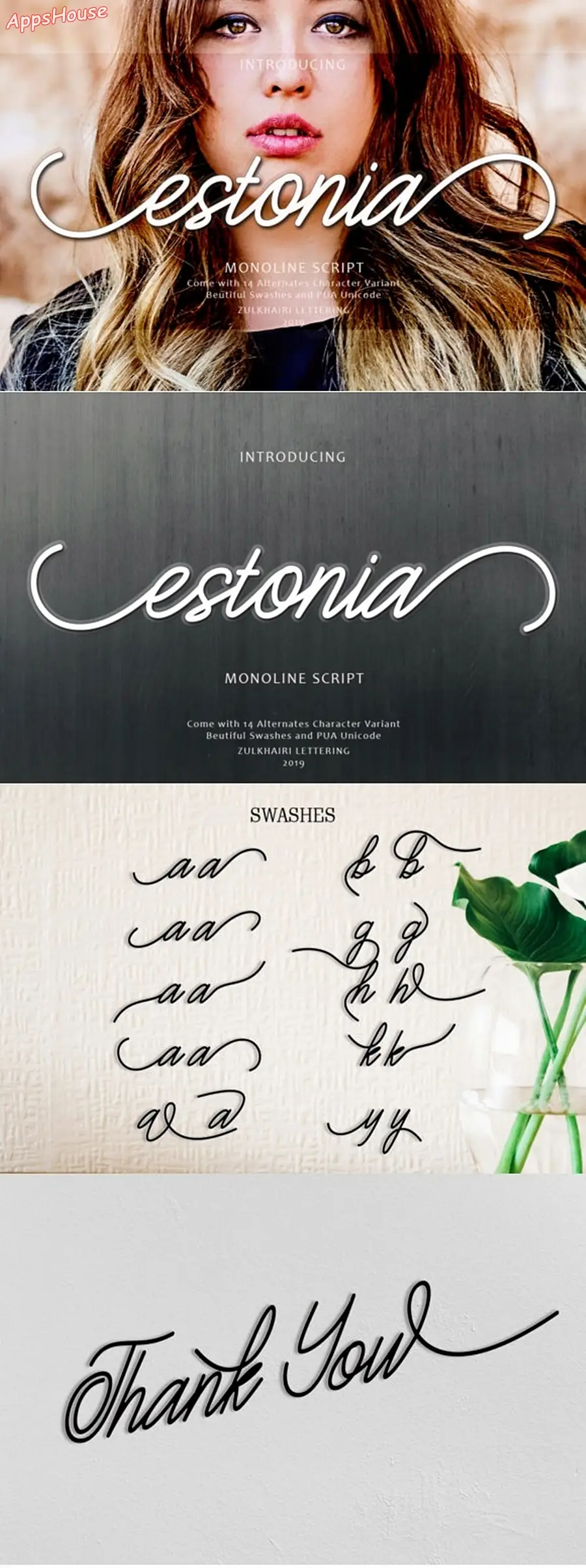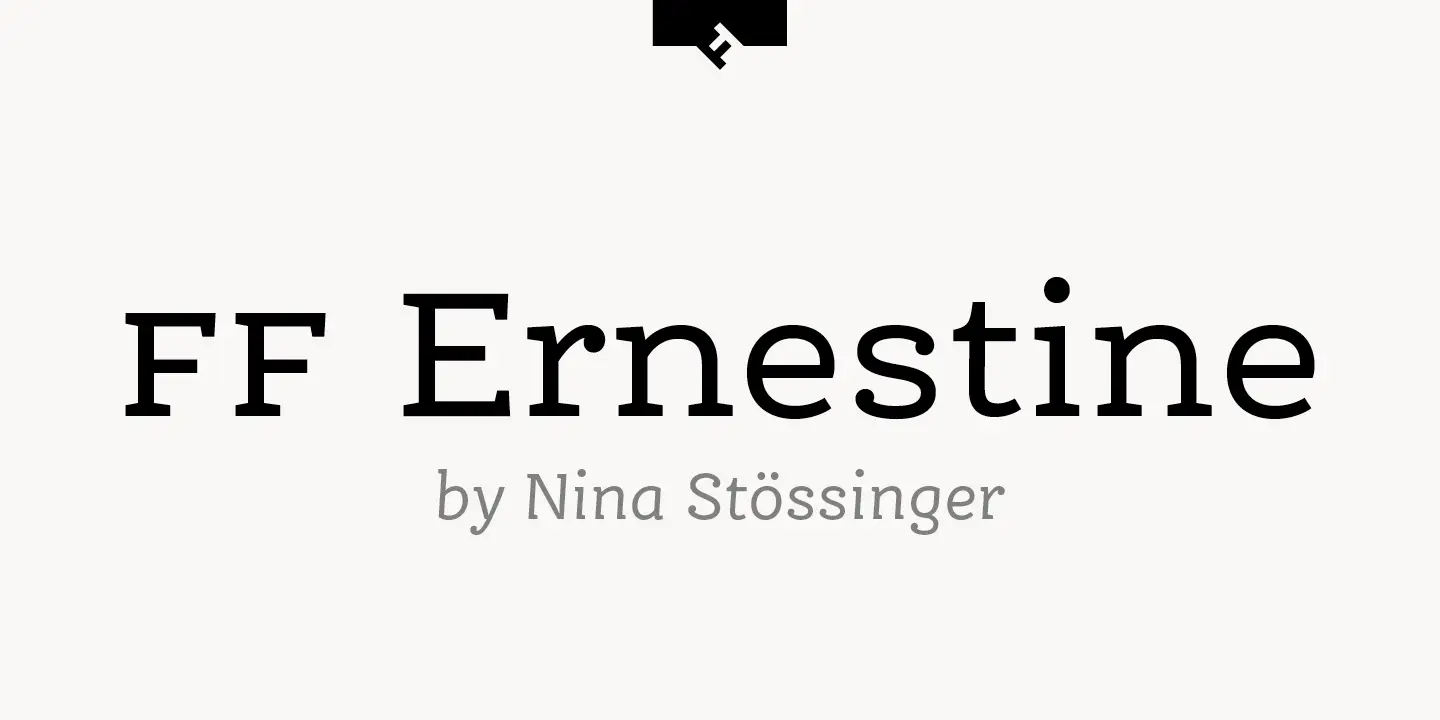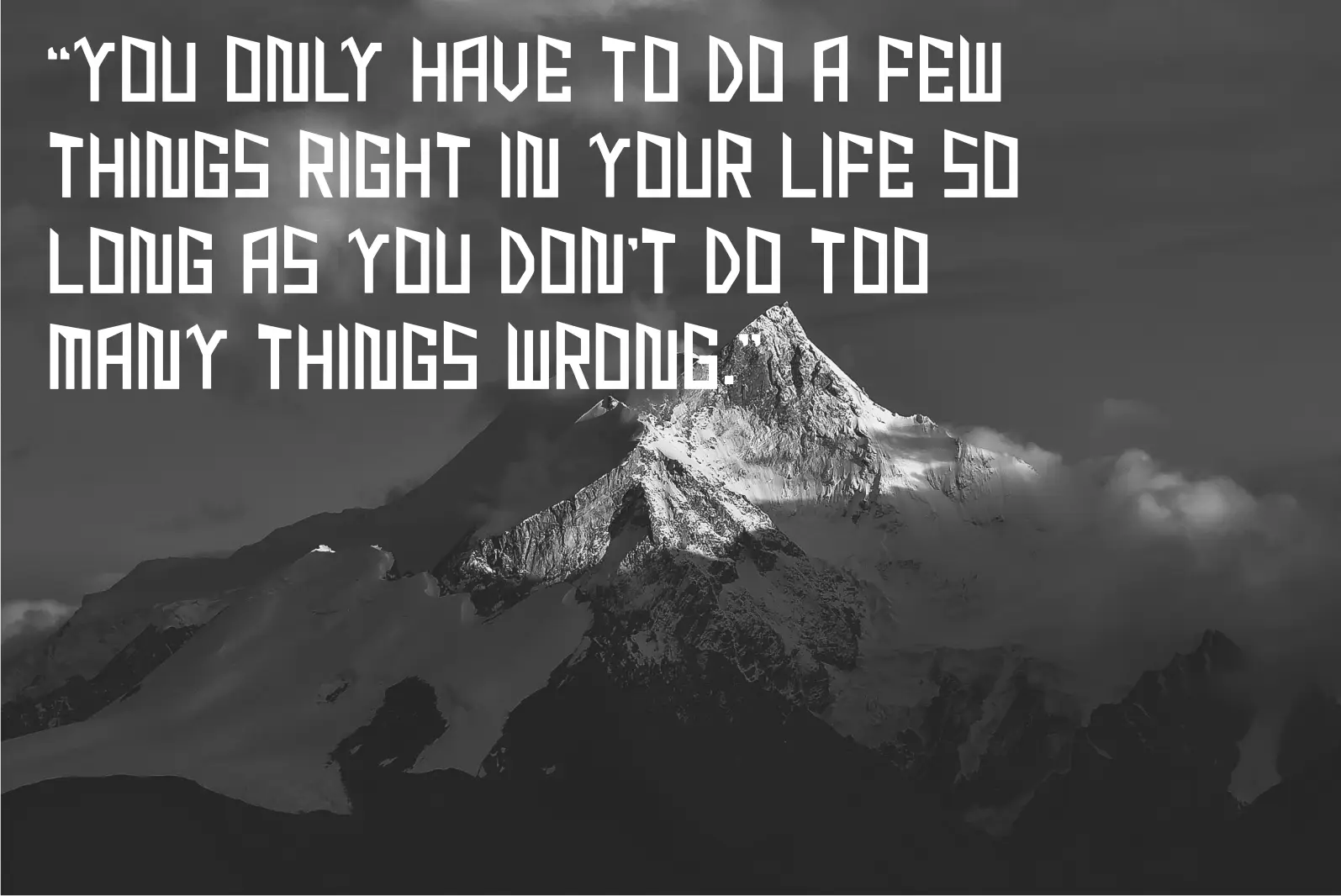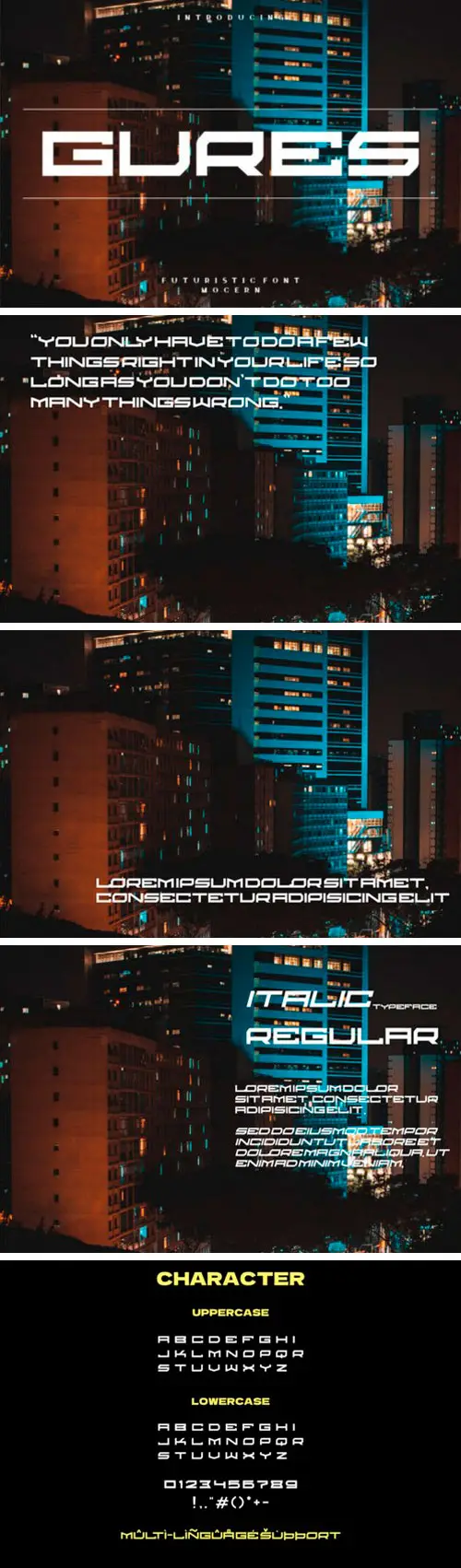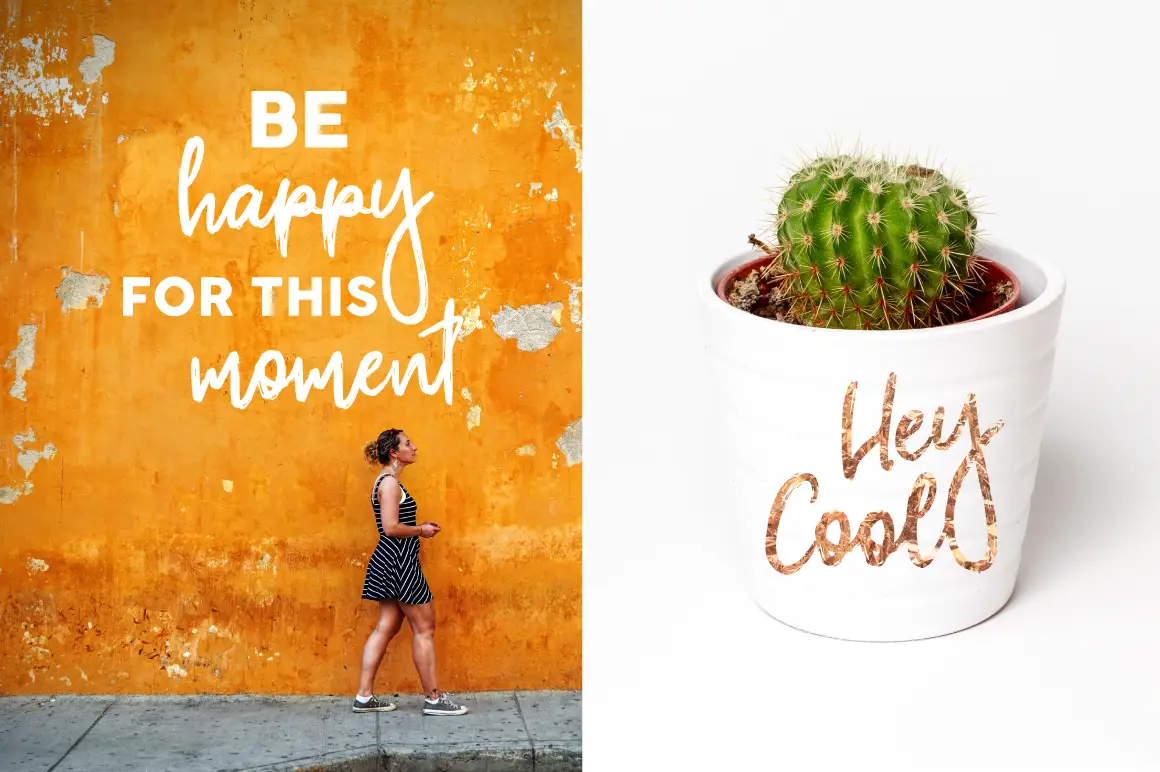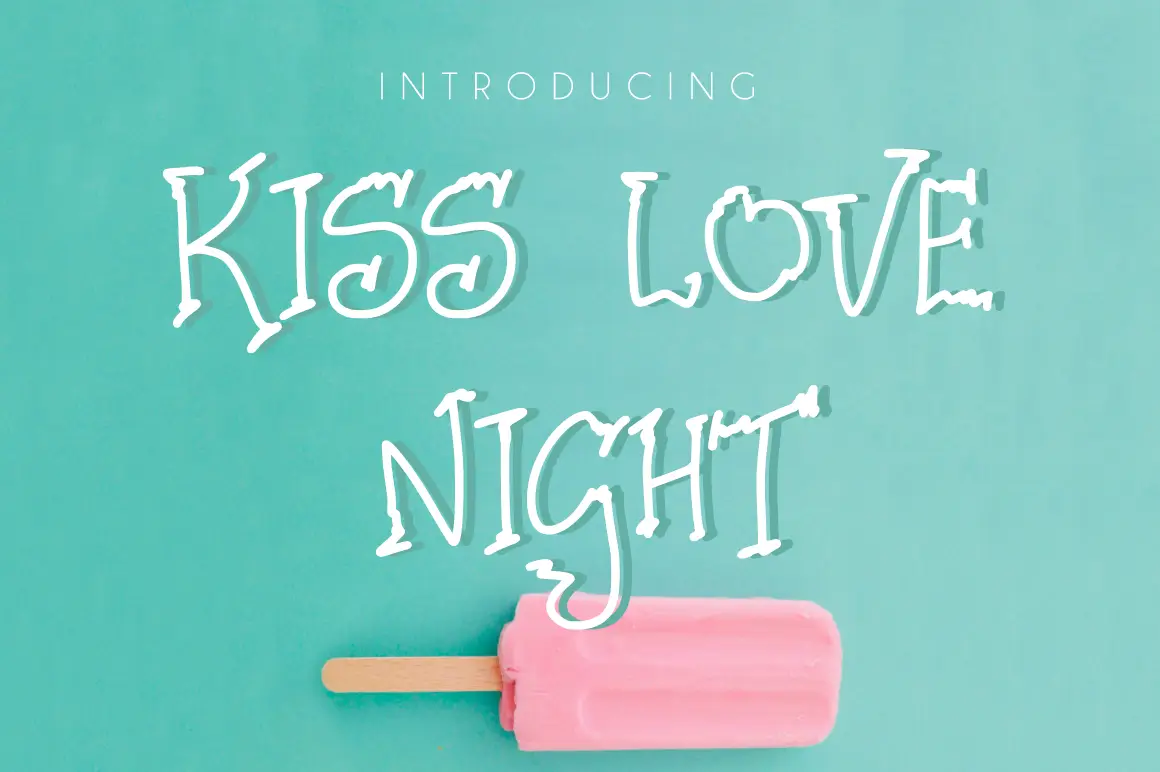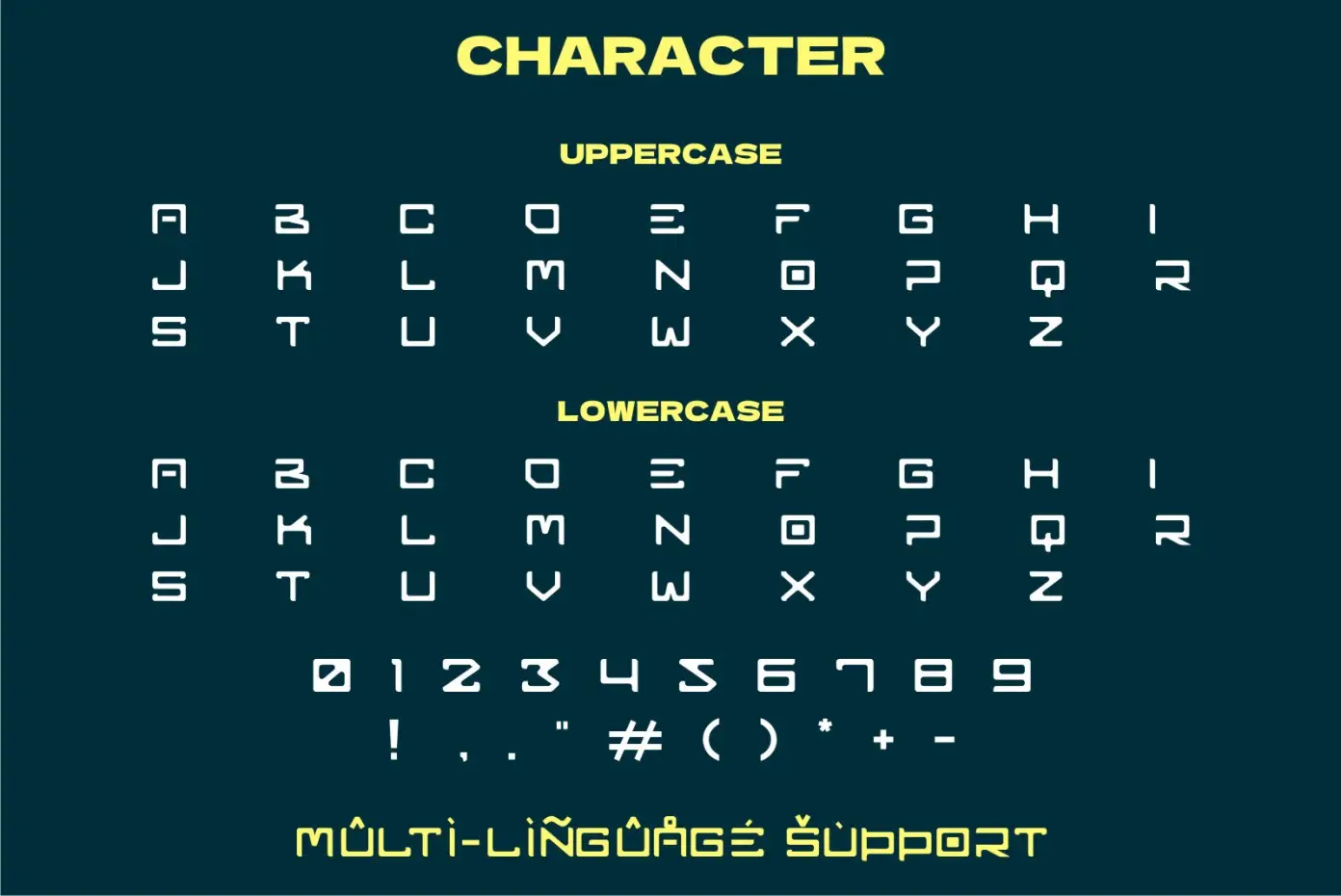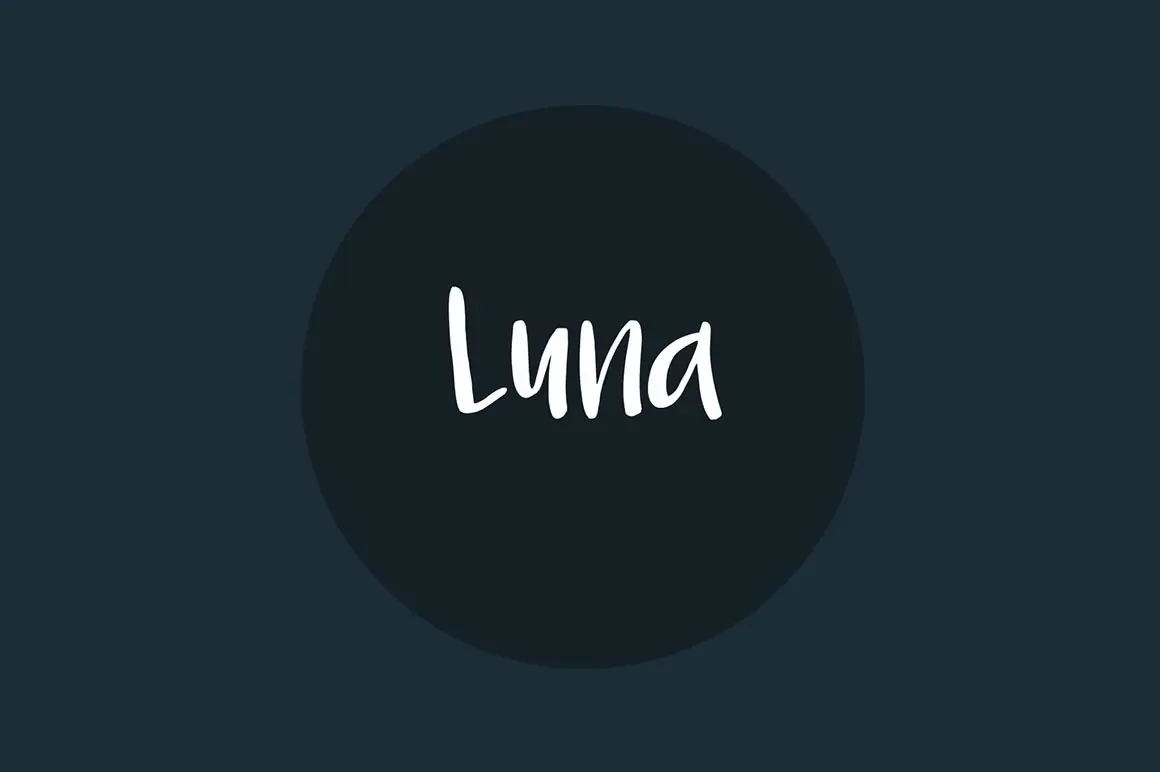
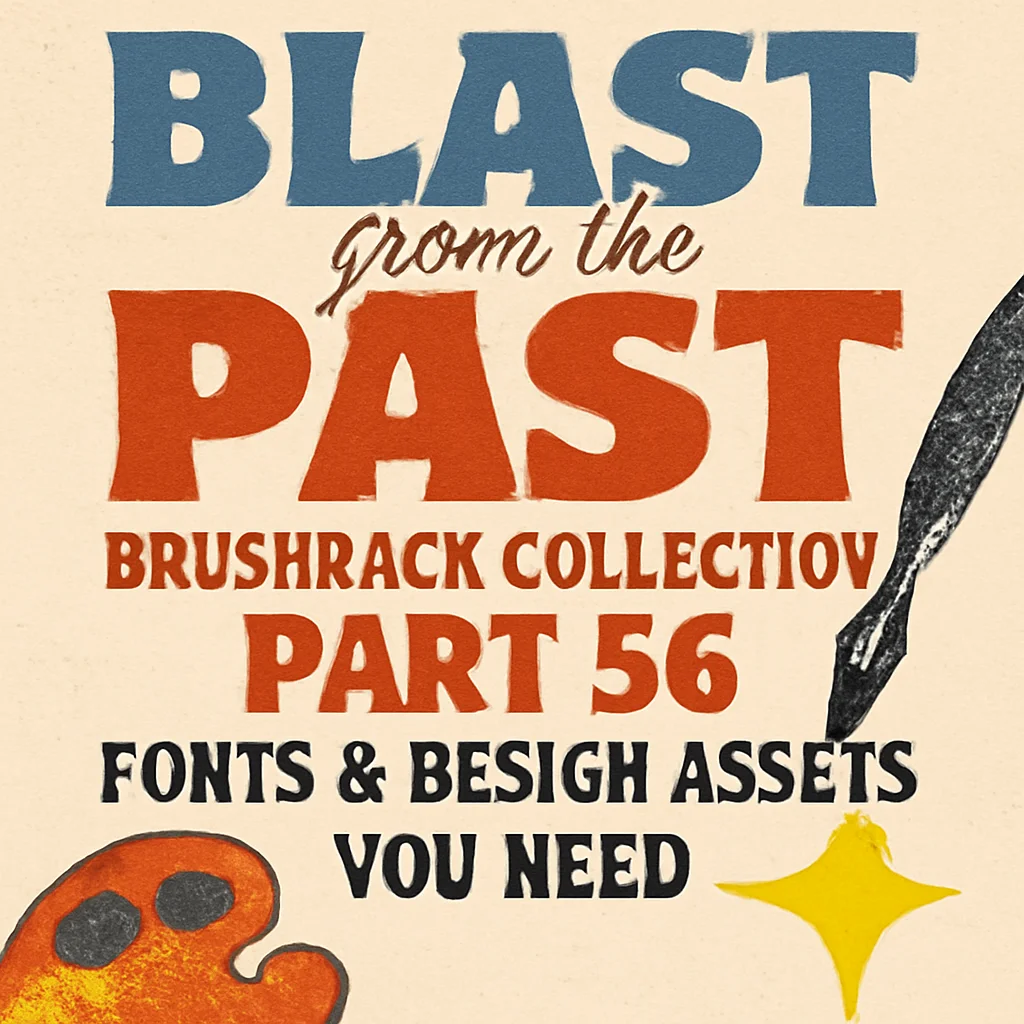
Hey there, creative soul! 👋 Ready to supercharge your design toolkit? Welcome back to another epic edition of the Brushespack Collection. This time, we’re diving into Part 56, and oh boy, is it a juicy one! 🚀 From stunning font duos to whimsical calligraphy and bold display fonts, we’ve got 20 hand-picked gems that will make your next project absolutely sing. Let’s get that creative spark glowing! ✨🎨
Why Use These Digital Design Assets?
Whether you’re a seasoned graphic designer or just starting your artistic journey, having the right typography and design assets is like having a magic wand. ✨ These fonts and graphics save you hours of work, bring instant polish to your brand, and help you stand out in a crowded digital world. From wedding invites to killer logos, these tools are your secret weapon. 🛠️💖
Top 20 Brushespack Collection Part 56 Picks
Malina Font Duo
Get ready to fall in love! 💘 The Malina Font Duo pairs a flowing script with a sleek sans-serif, making it perfect for branding, logos, and web design. It’s like having two best friends in one font package! 🎉
Melody Power
Unleash the power of melody in your designs! 🎶 This versatile collection of high-quality elements is perfect for everything from social media to print. Easy to customize and oh-so-crisp! 🔥
Mellisa Calligraphy Font
Elegance personified. ✨ The Mellisa Calligraphy Font is your go-to for wedding invites, luxury branding, and anything that needs a touch of class. Those flowing strokes? Pure poetry. 🖋️💕
Estonia Modern Calligraphy Font
Modern, smooth, and absolutely stunning. 🌟 The Estonia Modern Calligraphy Font features elegant curves and stylish letterforms that work beautifully in both digital and print. A must-have for any font lover! 🎨
Laca Sans Serif Font
Clean, contemporary, and incredibly versatile. 💎 Laca Sans Serif Font comes in multiple weights (Light, Regular, Medium, Bold!)—perfect for branding, web design, or print projects that need that modern edge. 🚀
Luna Font
Moonlit magic in typography! 🌙 The Luna Font blends soft curves with sharp edges for a look that’s both elegant and modern. With Regular, Bold, and Italic, plus yummy ligatures, it’s a dream. ✨
Gures Font
Modern meets classic—hello, Gures Font! 🎭 This typeface is a chameleon, perfect for branding, logos, web design, and even user interfaces. Multiple weights give you all the flexibility you need. 🎯
Grafitas Display Font
Bold, artistic, and impossible to ignore! 💥 The Grafitas Display Font is built for making statements. Unique character shapes and multiple weights make it perfect for logos and promotional materials that pop. 🎉
Gracelove Script Font
Flowing curves and stylish vibes—Gracelove Script Font is pure elegance. 🌸 Perfect for branding, invitations, and any project that needs a romantic, handwritten touch. Love at first sight! 💌
Lampor Display Font
Light up your designs with Lampor! 💡 This bold display font has distinctive letterforms that scream modern aesthetic. Available in multiple weights—ideal for head-turning branding and promo materials. 🔥
Kiss Love Night
Romance is in the air! 🌹 Kiss Love Night is a gorgeous digital asset pack filled with high-resolution graphics perfect for wedding invites, greeting cards, and dreamy social media posts. Pure love captured in pixels. 💖✨
Hey Friend
Say “Hey Friend” to your new favorite design asset! 👐 This friendly, modern graphic set is super easy to customize and comes in multiple formats. Perfect for adding a warm, approachable vibe to any project. ☀️
Gnome Script Font
Whimsical and charming! 🧙♂️ The Gnome Script Font has flowing lines and an artistic flair that will make your branding, logos, and web designs feel magical. Supports multilingual characters too! 🌍
Codigra Display Font
Bold impact guaranteed! 💪 The Codigra Display Font is a contemporary showstopper with unique character shapes. Perfect for headlines, branding, and logos that need to grab attention immediately. 🚀
Bouncy Castle Calligraphy Font
Playful, elegant, and totally fun! 🎪 The Bouncy Castle Calligraphy Font adds a touch of whimsy with its flowing lines and playful curves. Ideal for invitations, branding, and any project that deserves a smile. 😊✨
Carmilla Sans Serif Font
Elegance meets readability. 🖤 Carmilla Sans Serif Font is a modern typeface with clean lines and a contemporary aesthetic. Perfect for branding, logos, web, and print—multiple weights make it super flexible. 🎯
Gandhi Serif & Sans Font
Two fonts in one powerhouse pack! 👑 The Gandhi Serif & Sans Font family combines elegance and modernity with both serif and sans-serif styles. Perfect for branding to editorial layouts—super versatile! 📚✨
Ff Ernestine
Sophisticated and timeless. 🏛️ Ff Ernestine combines classic serif elegance with modern design. Multiple weights, numerals, and punctuation make it ideal for high-end branding and editorial work. ✨